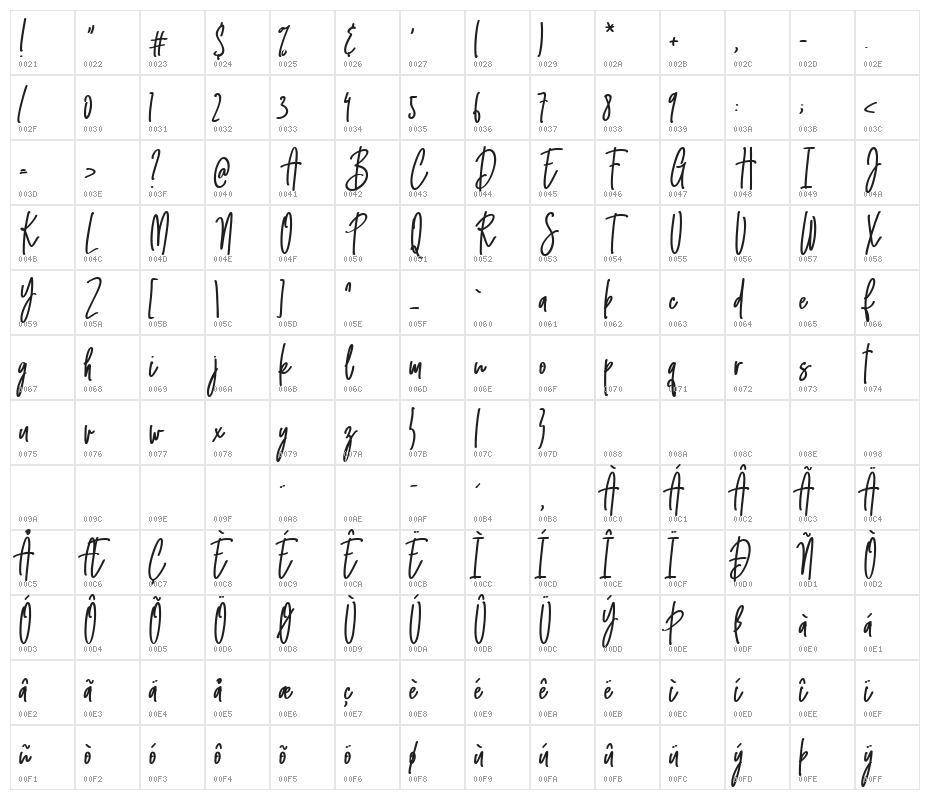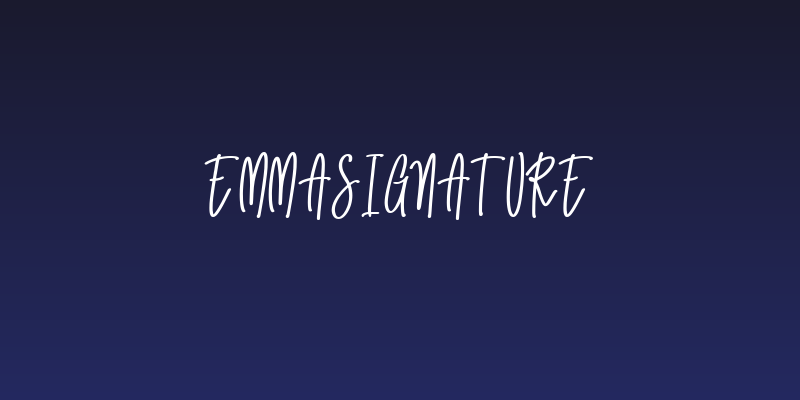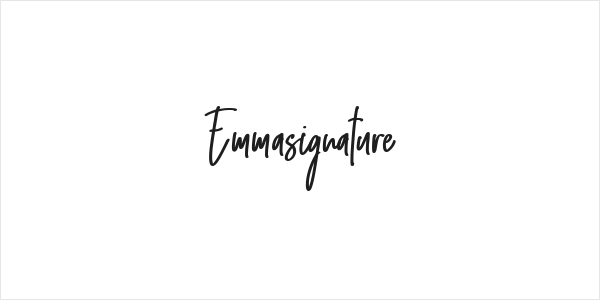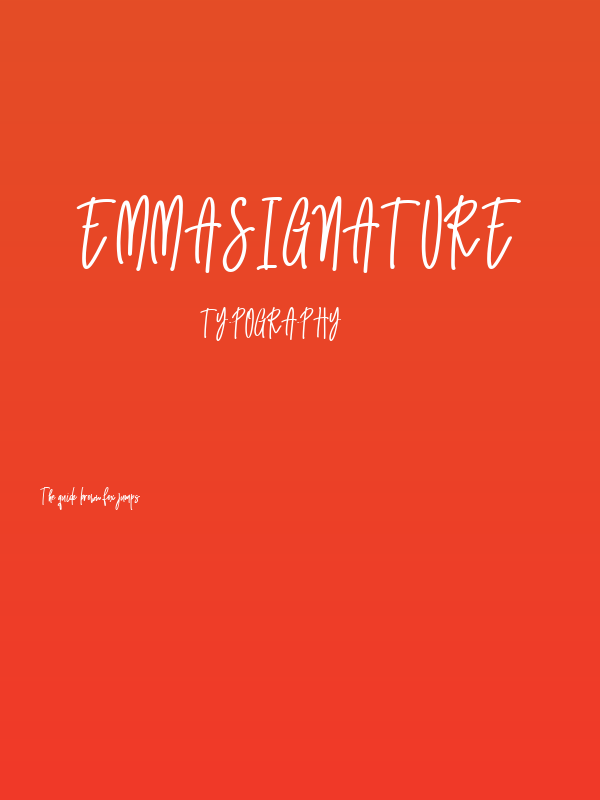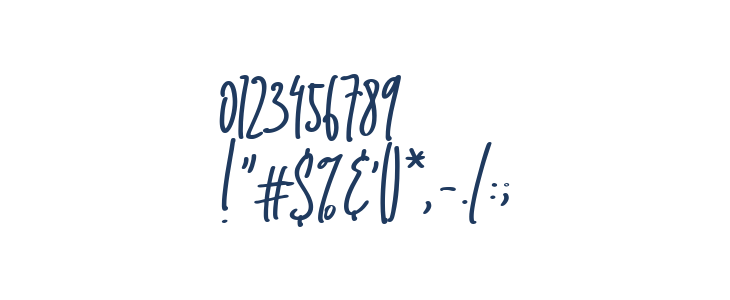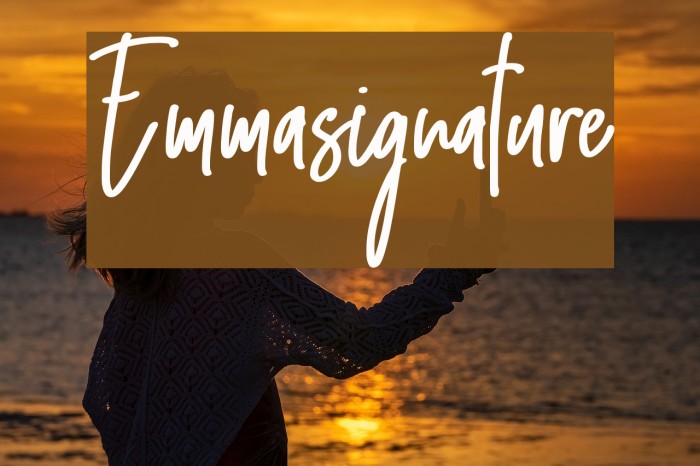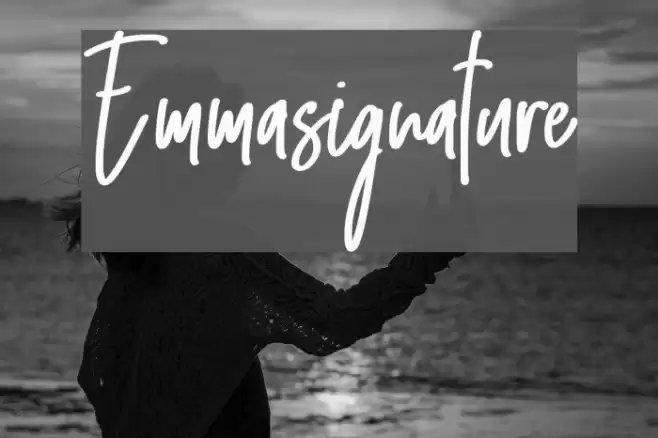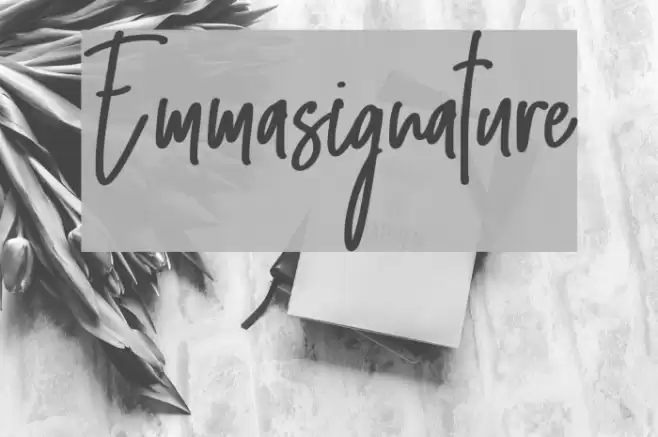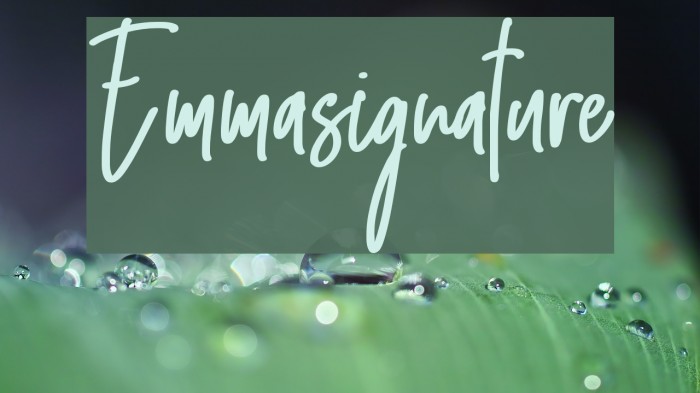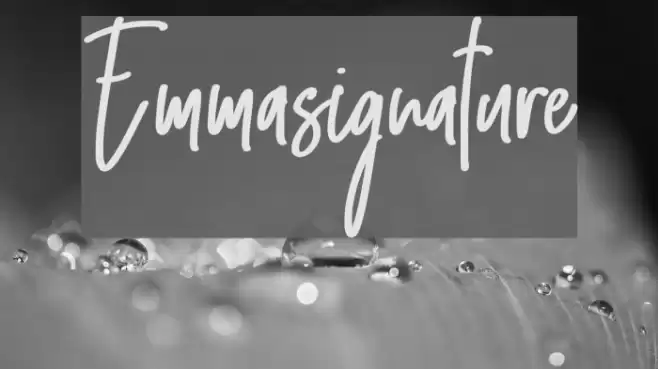
Emmasignature Font
Emmasignature Description
This font exudes a casual and personal touch, reminiscent of a handwritten signature. The letters are elongated and slightly slanted, giving an impression of fluidity and movement. The uppercase characters are tall and narrow, while the lowercase letters maintain a consistent flow with a slight cursive influence. The numbers and special characters are designed to match the overall style, ensuring a cohesive look. This font is ideal for projects that require a personal or informal feel, such as invitations, greeting cards, or branding materials that aim to convey a sense of individuality and warmth.
| Width | Condensed |
| Overall Style | Casual, Personal |
| Use Case | Logos, Invitations, Personal Branding |
| Proposed Projects | Ideal for invitations, greeting cards, personal branding, and informal communication. |